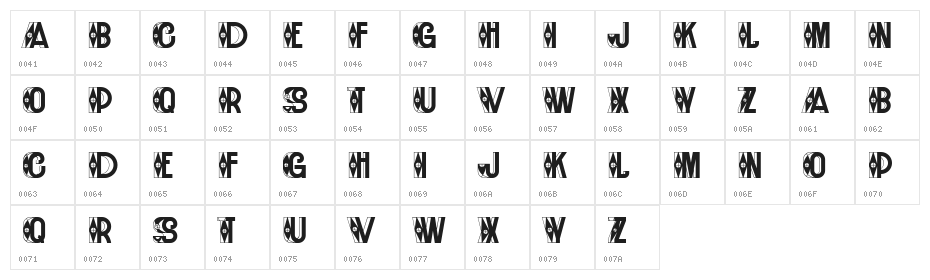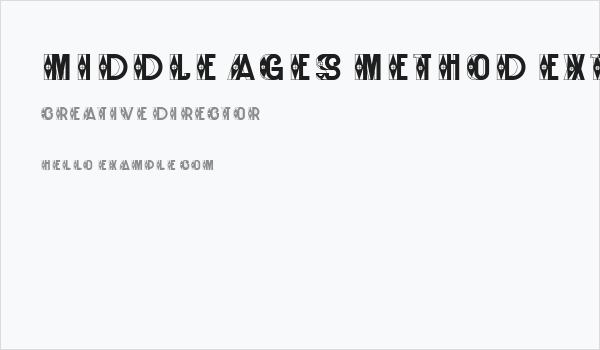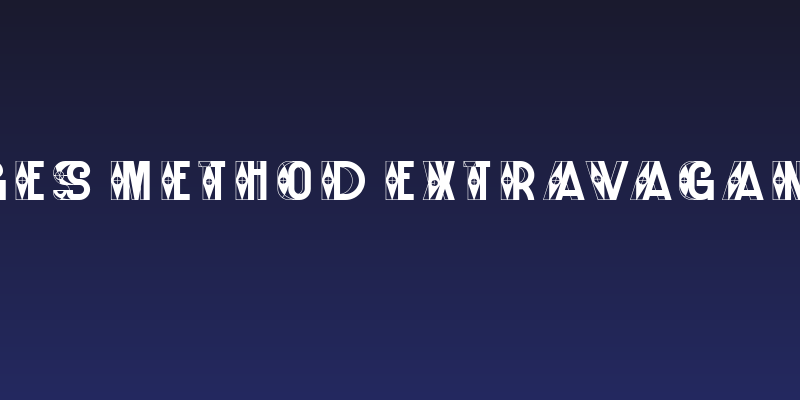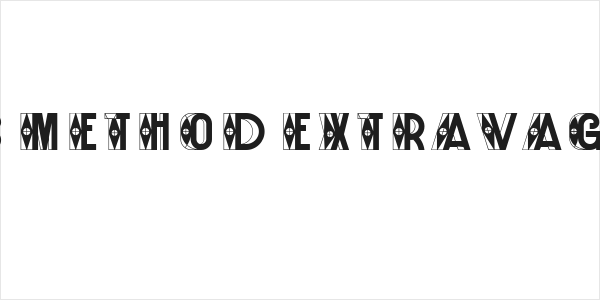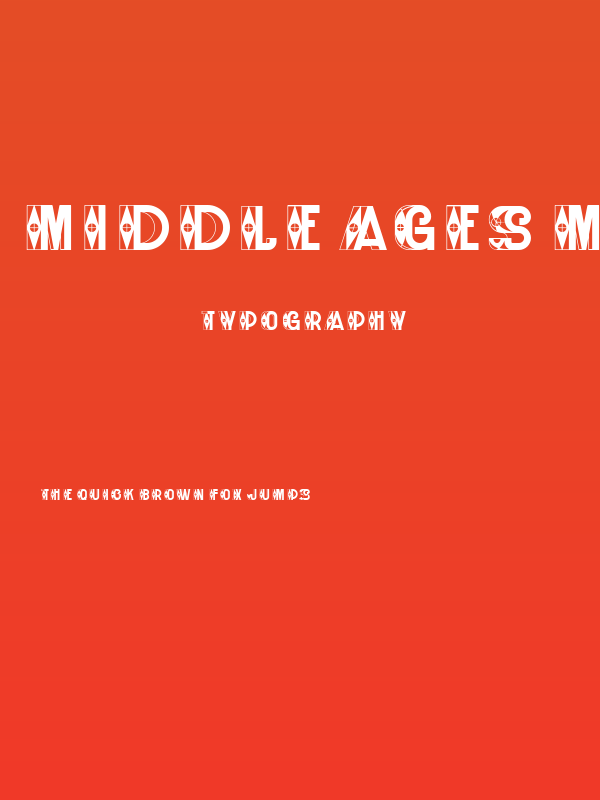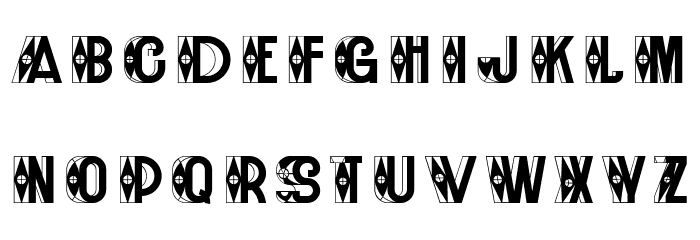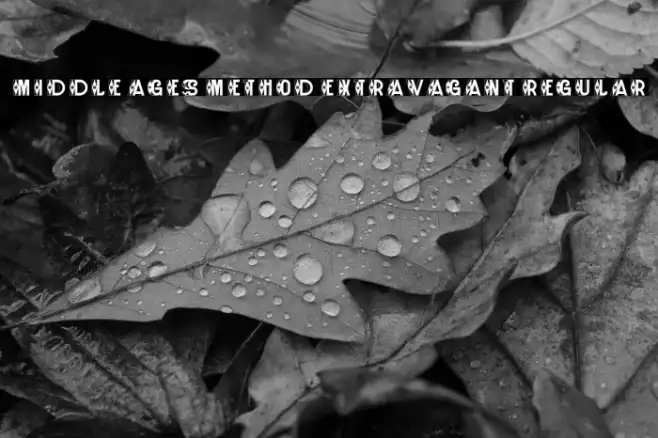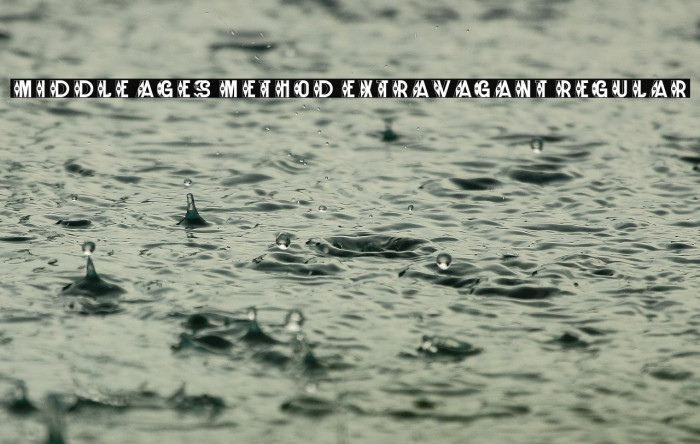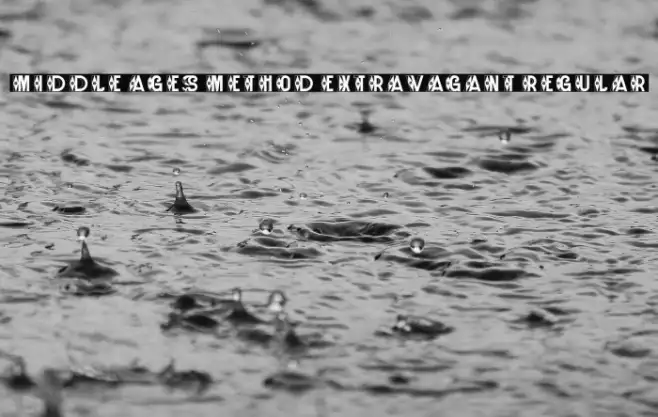
Middle Ages Method Extravagant Regular Font
Middle Ages Method Extravagant Regular Description
This font features an intricate and decorative design reminiscent of medieval artistry. Each character is adorned with elaborate patterns, incorporating geometric shapes and floral motifs that give it a unique and extravagant appearance. The bold, uppercase letters are designed with a high level of detail, making them stand out with a strong visual impact. The overall style is both historical and artistic, capturing the essence of a bygone era while maintaining a modern flair. The font's distinctiveness makes it suitable for projects that require a touch of elegance and historical charm.
| Overall Style | Vintage, Decorative |
| Proposed Projects | Ideal for historical-themed designs, invitations, posters, and branding that require a touch of elegance and artistry. |